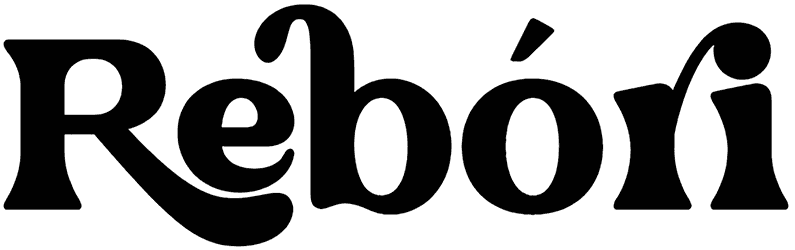
Rebori Font
Sophistication and vintage design can come with a ligature font. Rebori is here with its unique design to give your content a desirable look that makes your heart warm. Be distinctive and use this font for business cards, logos, advertisements, and branding.